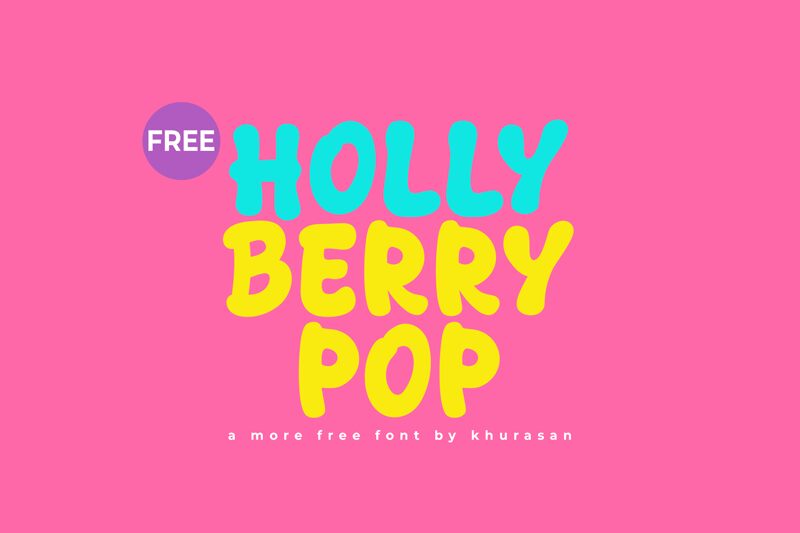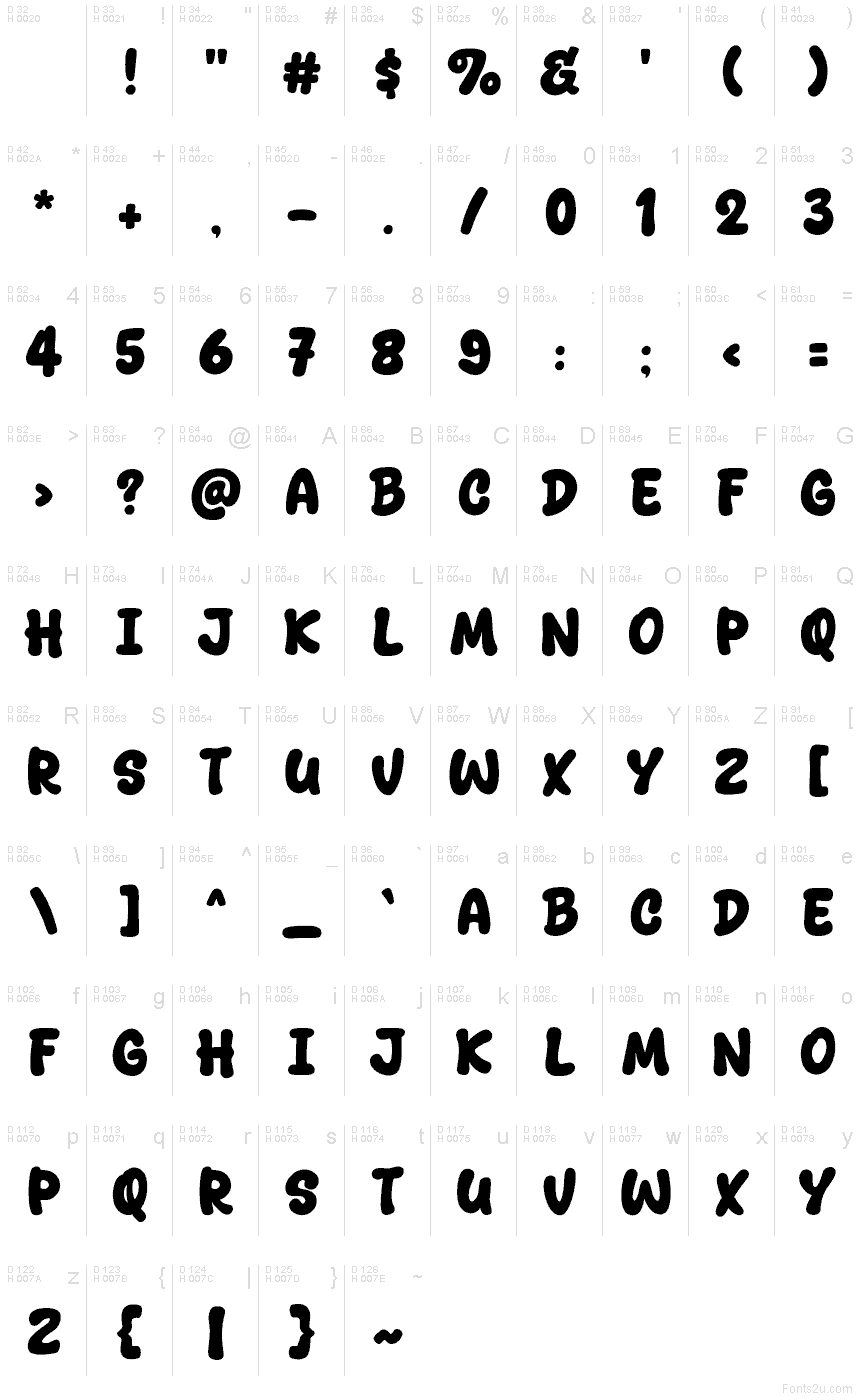
Holly Berry Pop
Holly Berry Pop font by Khurasan is a free cartoon display typeface with big, juicy letters that feel like they’ve been piped from frosting or squished out of a marker. The rounded shapes, tight rhythm, and inky black fill give it that bouncy, hand-drawn charm that instantly reads as fun and friendly. It’s loud, legible, and energetic, so a single word set large can carry a whole composition on its own.
Using Holly Berry Pop, you can light up kids’ book covers, party invitations, toy packaging, holiday promos, social media graphics, and playful logos. This free font shines when you let it breathe at larger sizes and keep supporting text in a clean sans serif for contrast. Drop it into bright color palettes, add simple shapes or doodles around it, and you’ve got instant, candy-coated personality with almost no extra effort.